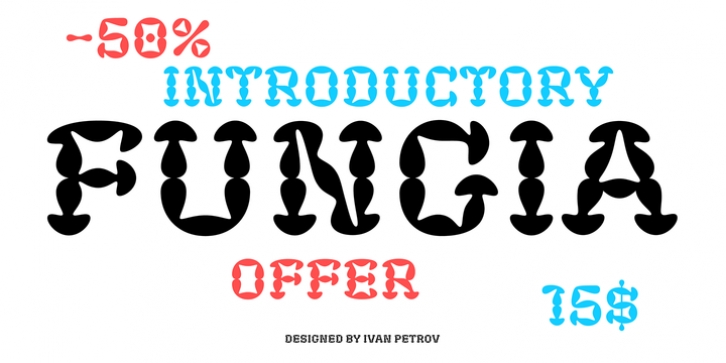
Fungia is the result of an experiment to remelt loose bionic forms to a coherent structure of type. The idea appeared as a kind of joke: what letters look like if based on the shape of the mushroom. In a sense the structure of mushroom has some affinity to the structure of a letter: a cap and a stalk remind a serif and a stem respectively. So it was pretty easy to design such straight letters like I, E, L, F. The captivating challenge was to apply the idea on round letters (O, C, D, G), letters with diagonal (N, M, Z) and signs without serifs (digits, @, &). The result exceeded expectations. The typeface turned sophisticated and vibrant but absolutely consistent. It became capital-only font in one weight.